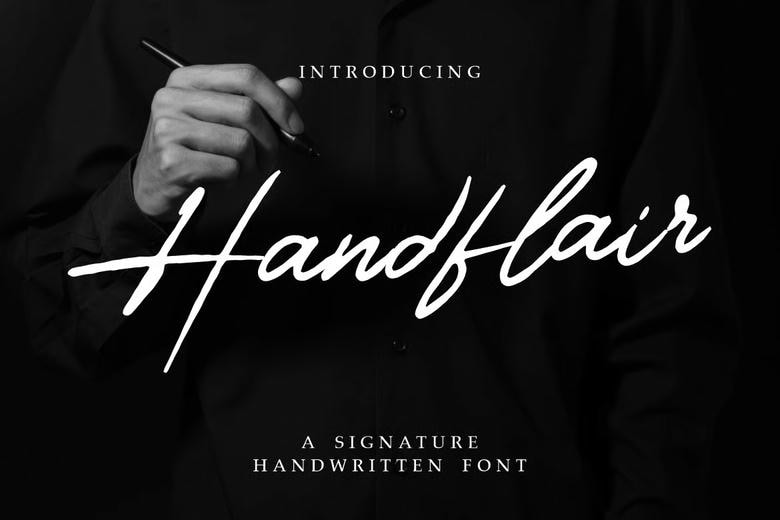
Handflair Font
Handflair Signature Font is a refined handwritten font that is set out to win elegance, character and sophisticated beauty. The flowing lines of its strokes are of the real penmanship, so it is best suited in projects that need a certain element of uniqueness and professionalism. Natural curves and stylish connections are made in each letter and modern simplicity and luxury balance together.
The elegant style of the font makes it versatile and it is effective in digital and print designs. Be it personal branding or luxury packaging of the product, Handflair Signature Font will add authenticity and luster to any work.
The typeface is designed to focus on readability and accuracy as well as style and grace, where the upper case characters speak of confidence and the lower case characters have a flowing nature. It goes hand in hand with fashion branding, wedding invitations, book covers and film titles. Its elegant cursive design leaves memorable logos, business cards and classy advertisement campaigns signatures.
Handflair Signature Font is classy and does not limit readability, so it is undoubtedly one that designers should have in order to have a classic style. This font will take any visual identity to a new level of uniqueness and memorable due to its versatility and vintage handwritten flair.
Handflair Signature Script Font